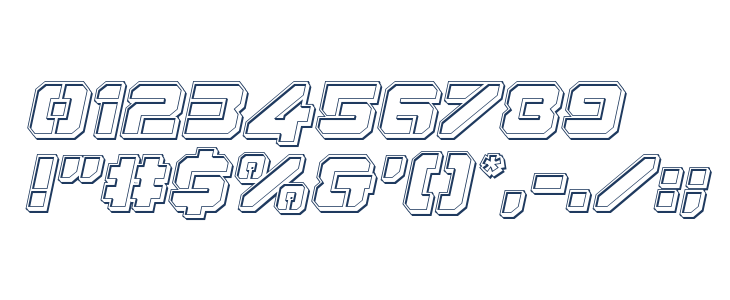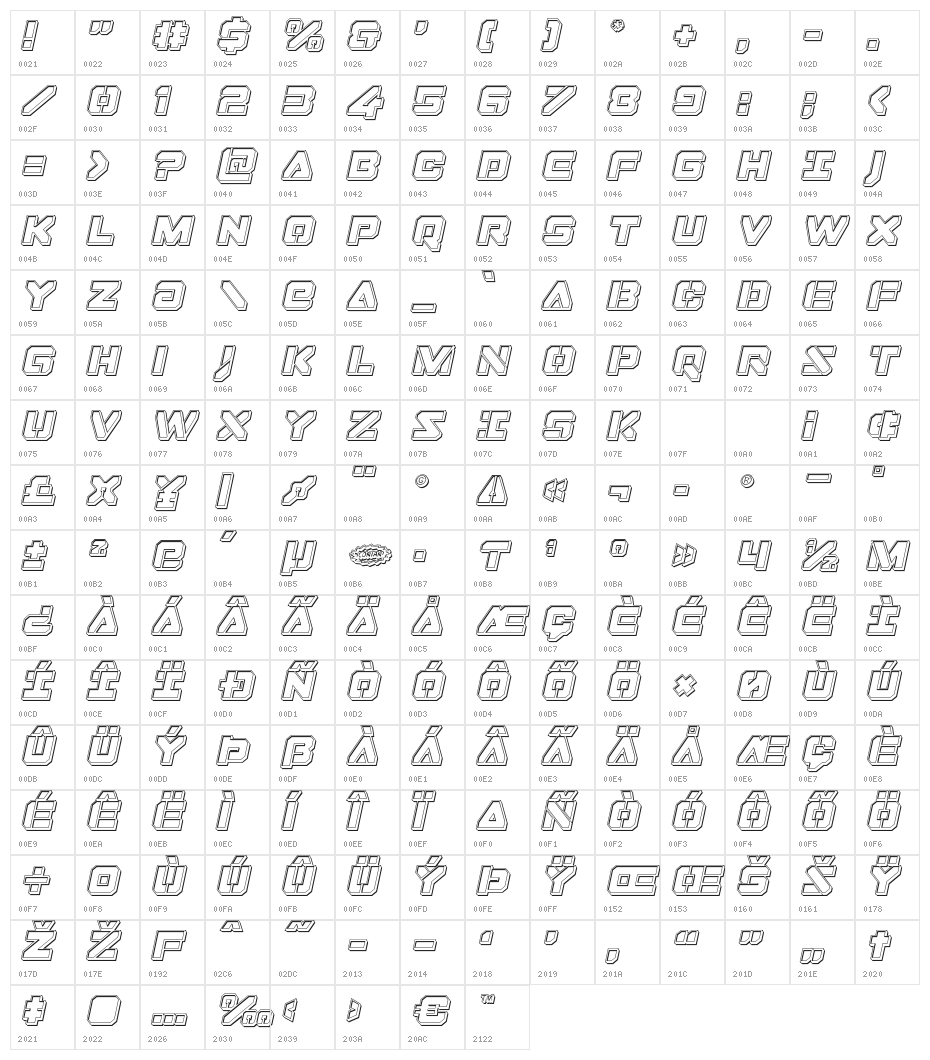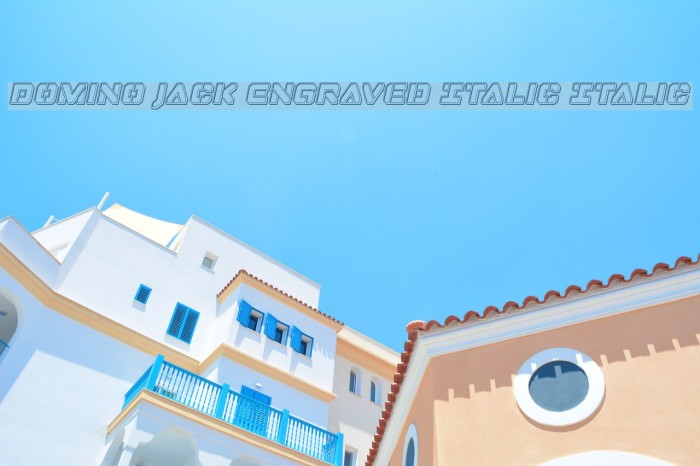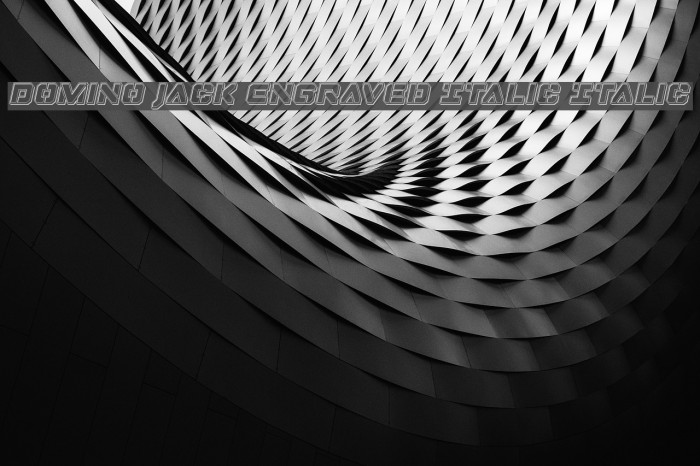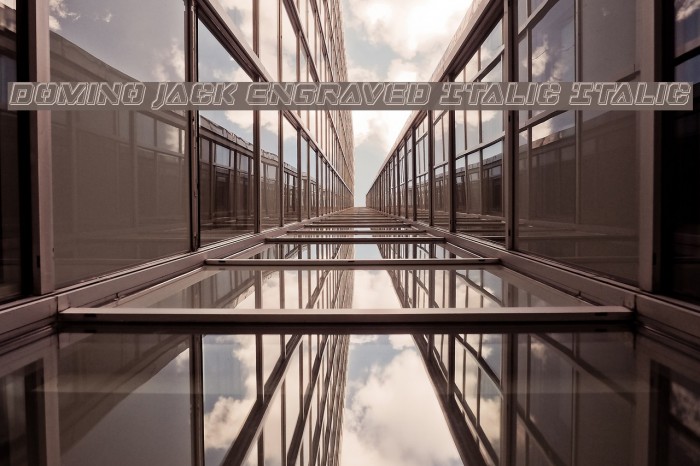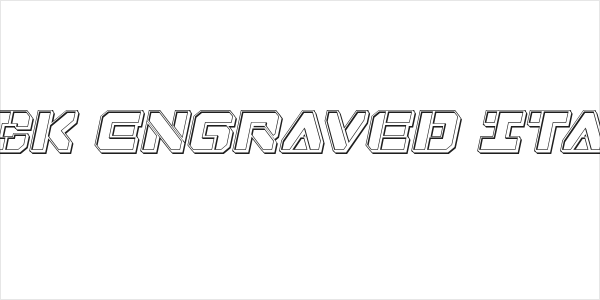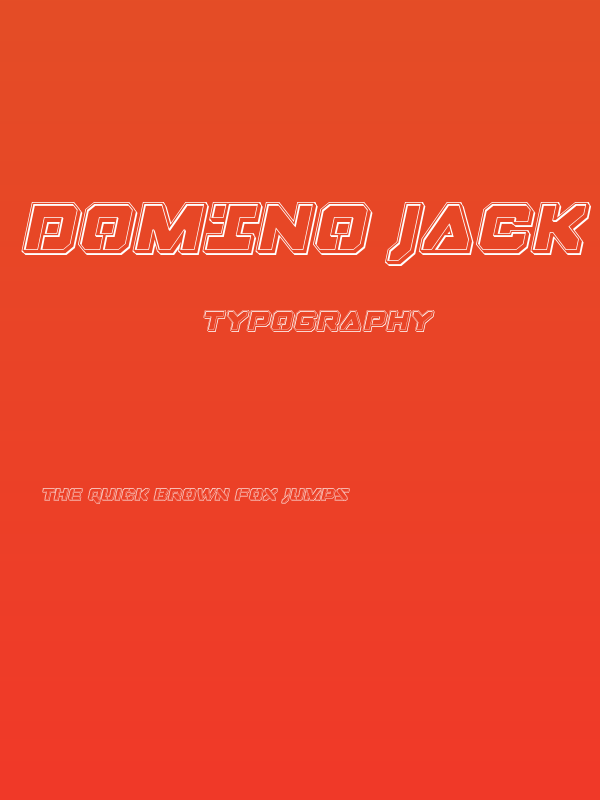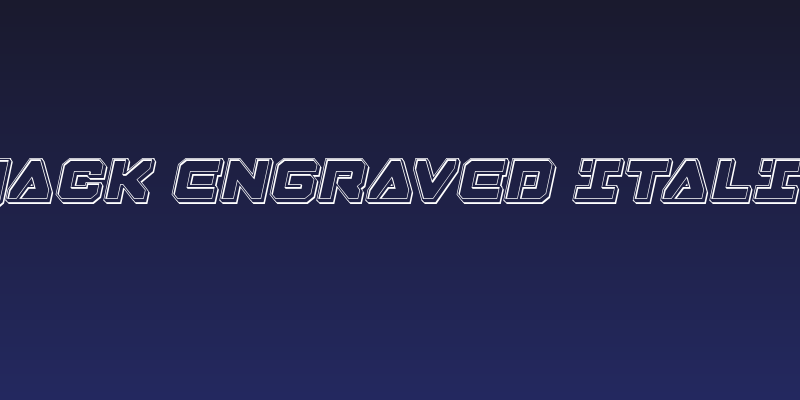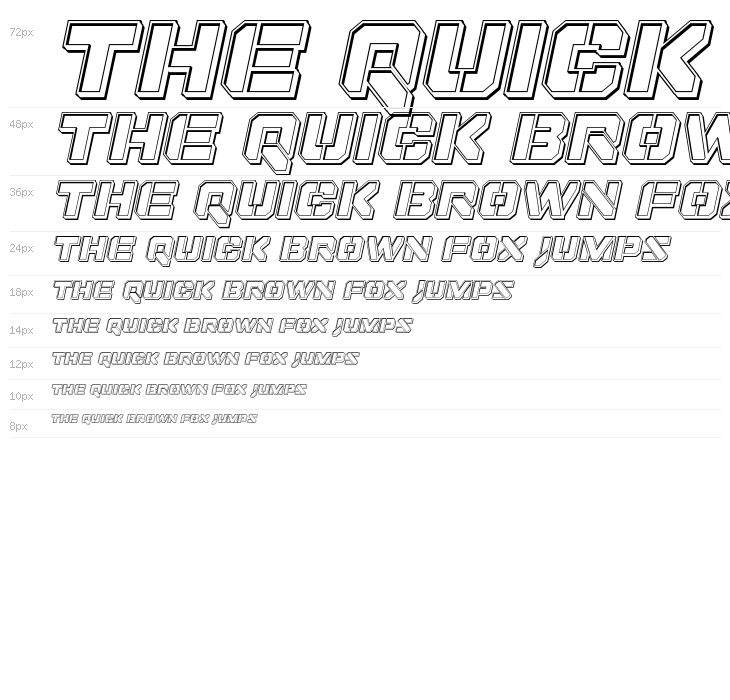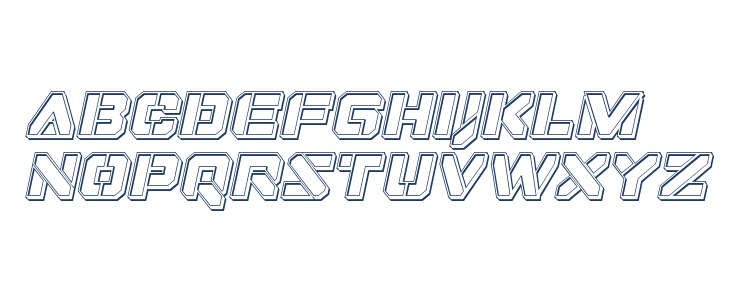
Domino Jack Engraved Italic Italic Font
Domino Jack Engraved Italic Italic Description
This font features a bold, geometric design with a three-dimensional engraved effect. The characters are italicized, giving a dynamic and forward-leaning appearance. The uppercase letters are distinct with sharp angles and clean lines, while the numbers and special characters maintain the same bold and structured style. The font's engraved look adds depth and a sense of sophistication, making it suitable for projects that require a modern yet impactful visual statement.
Proposed ProjectsIdeal for branding, posters, and headlines where a modern and bold statement is needed.